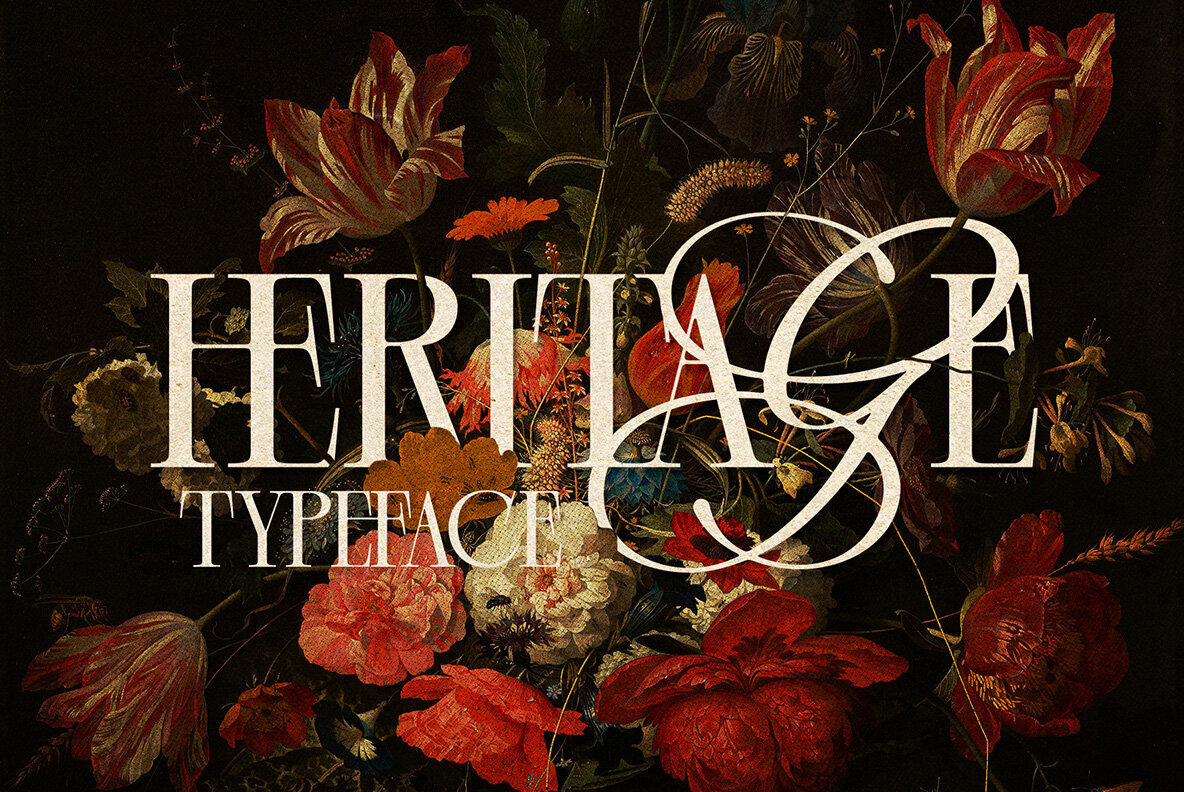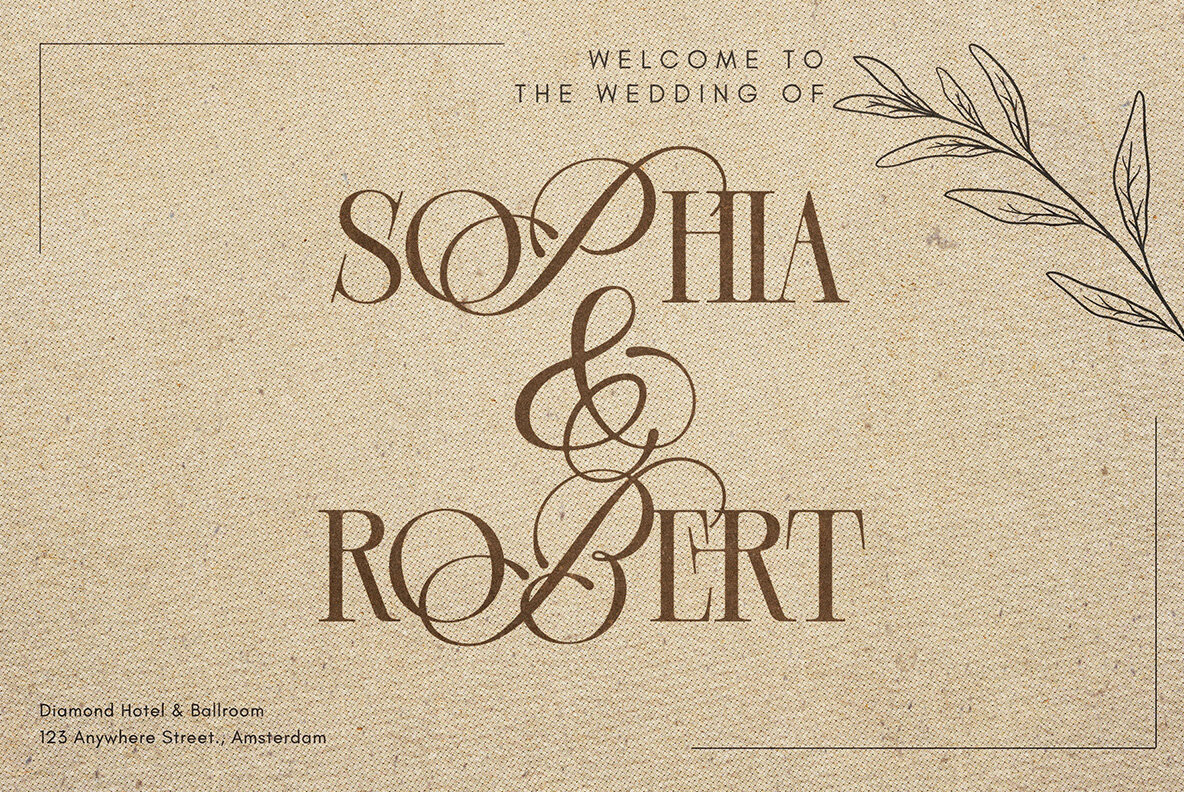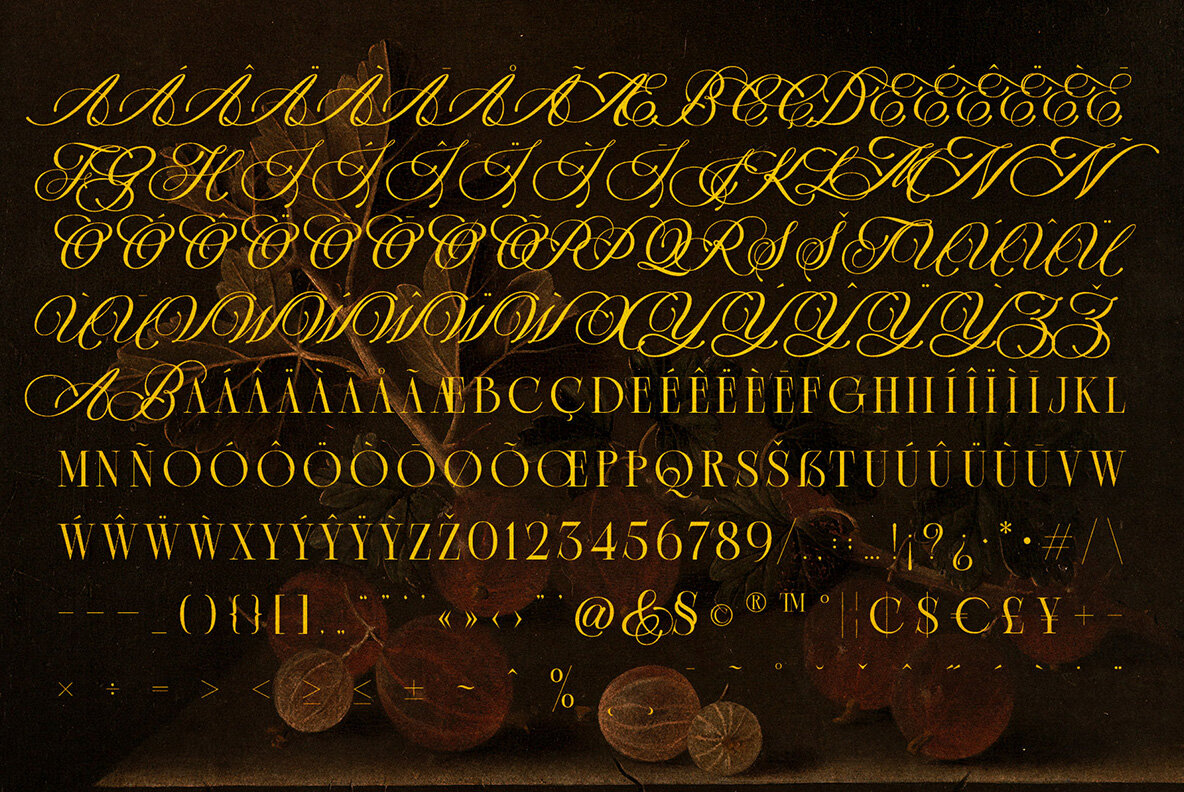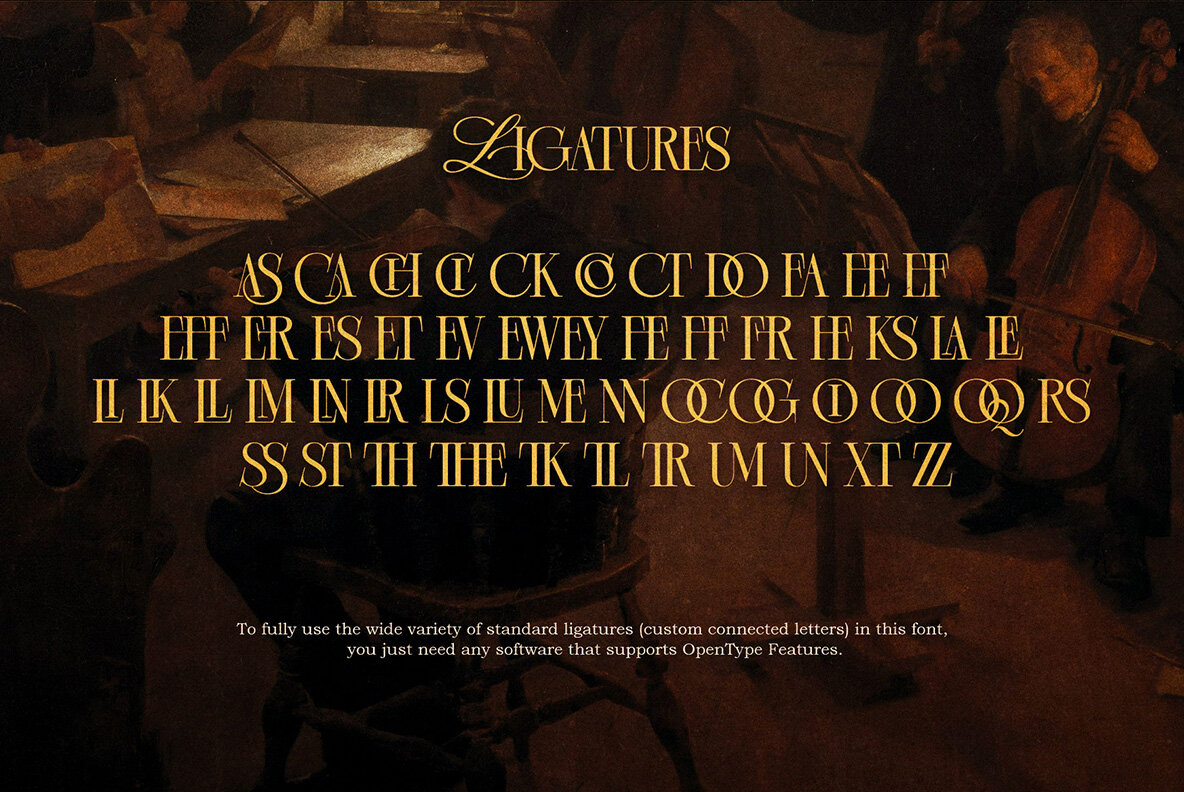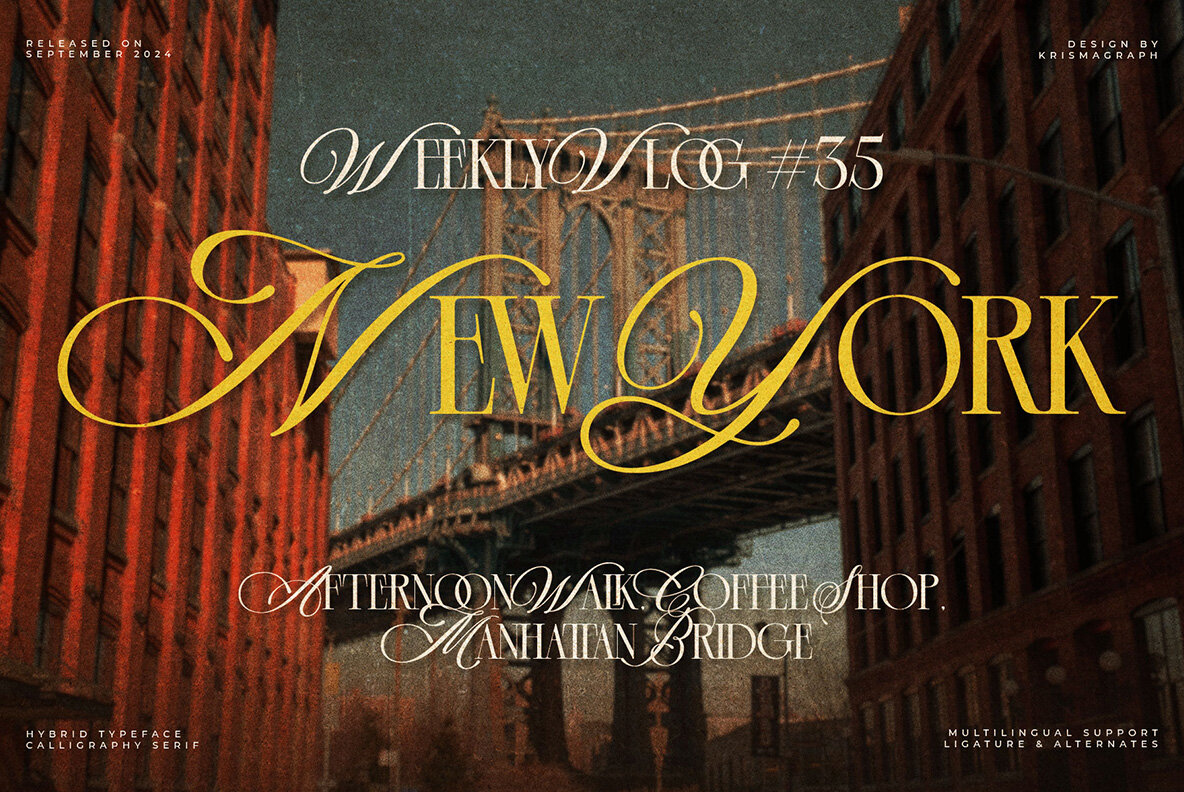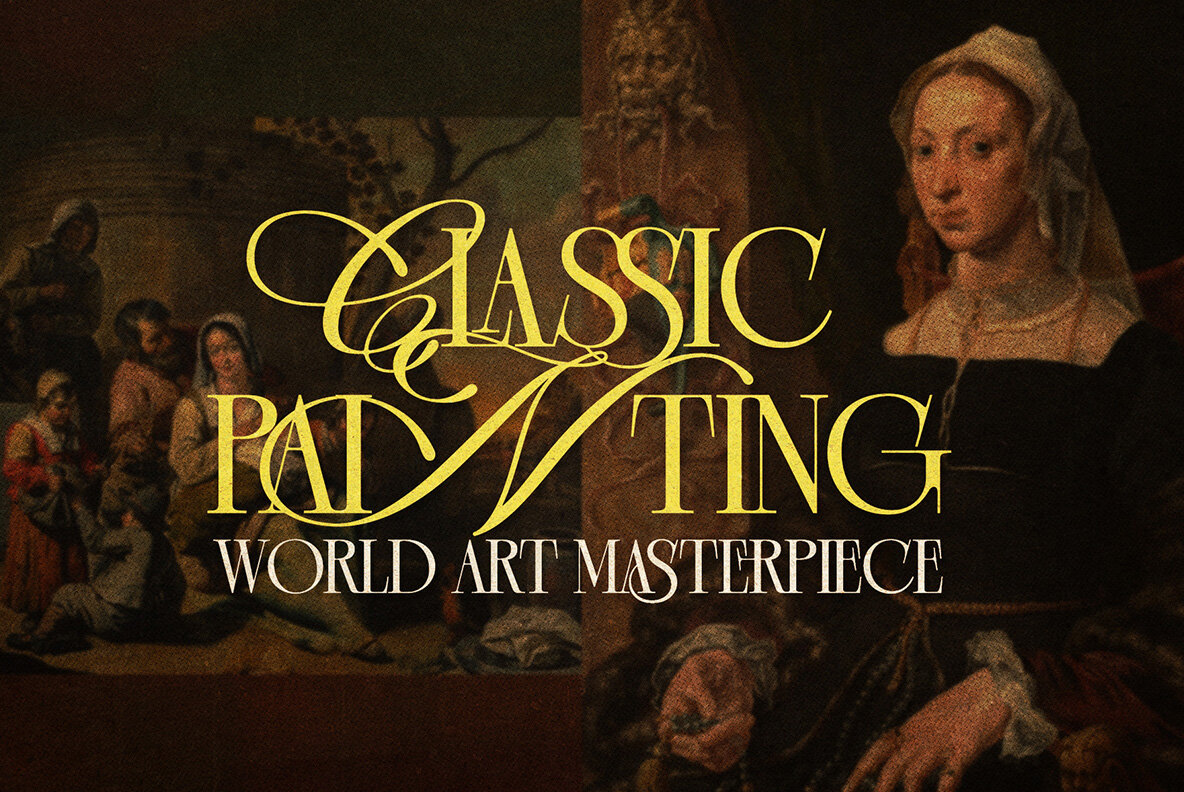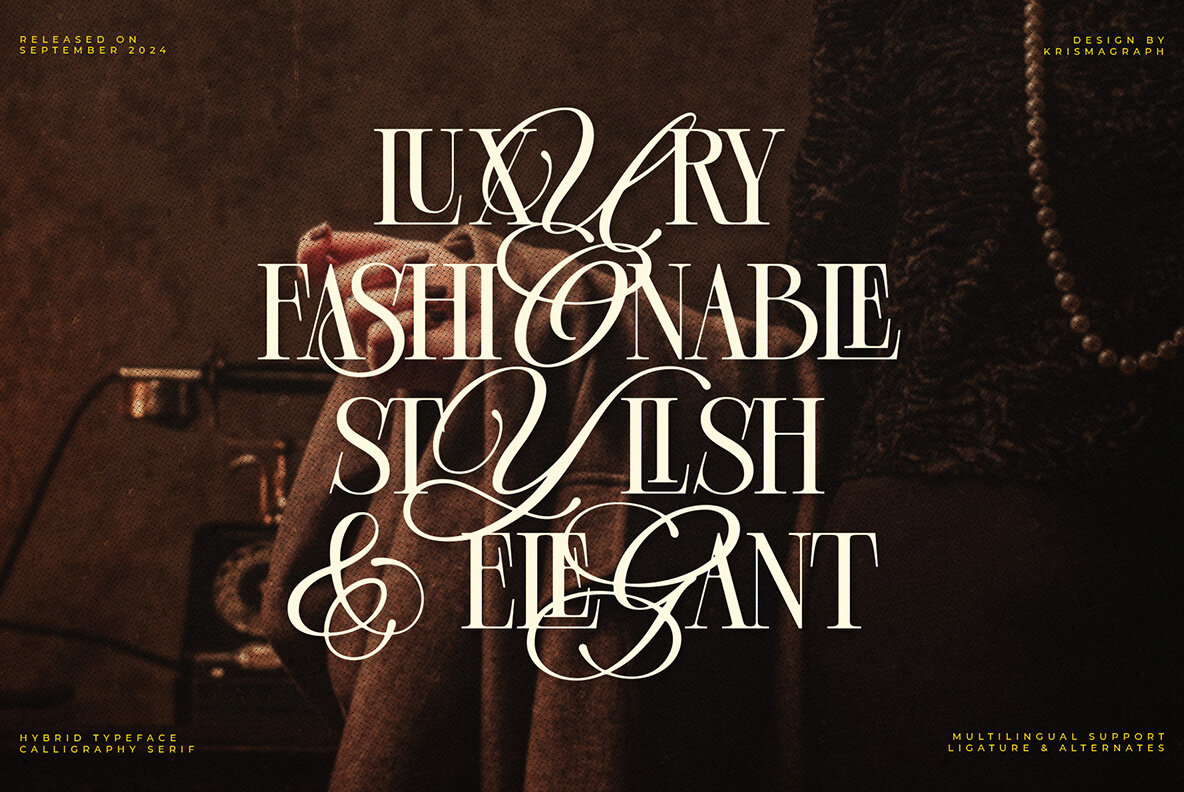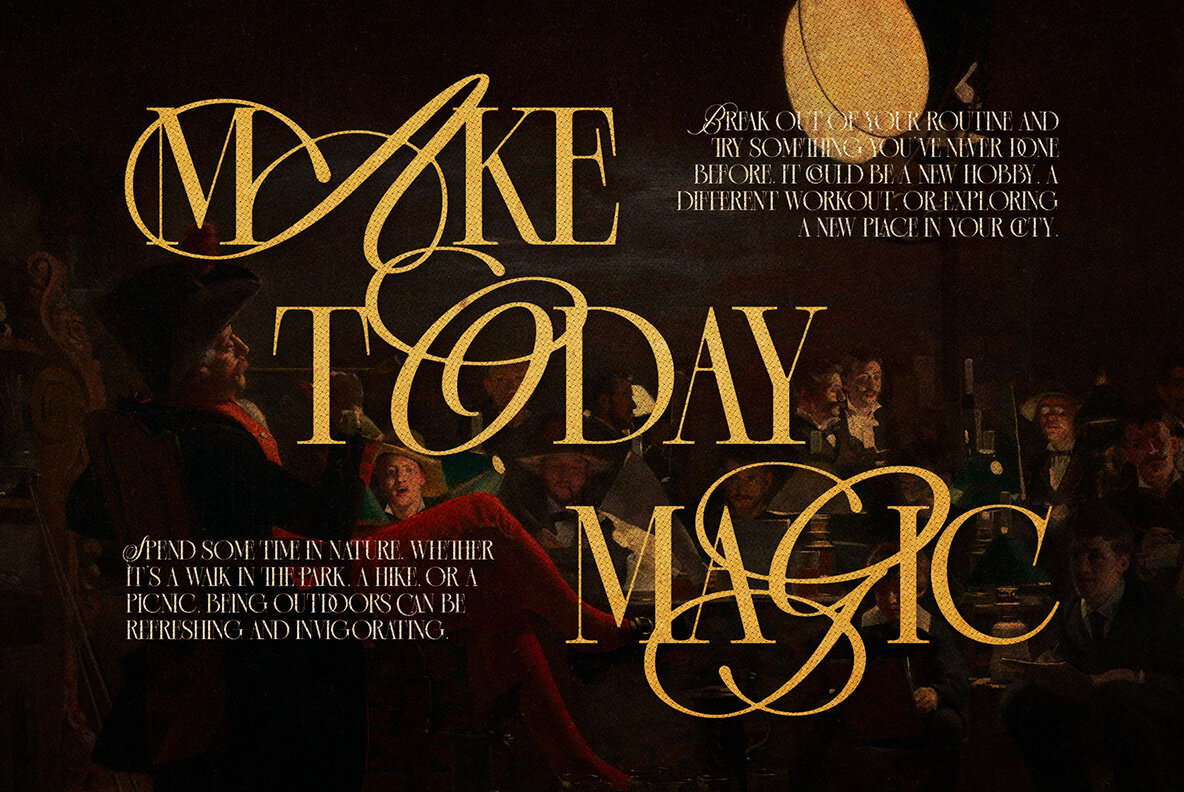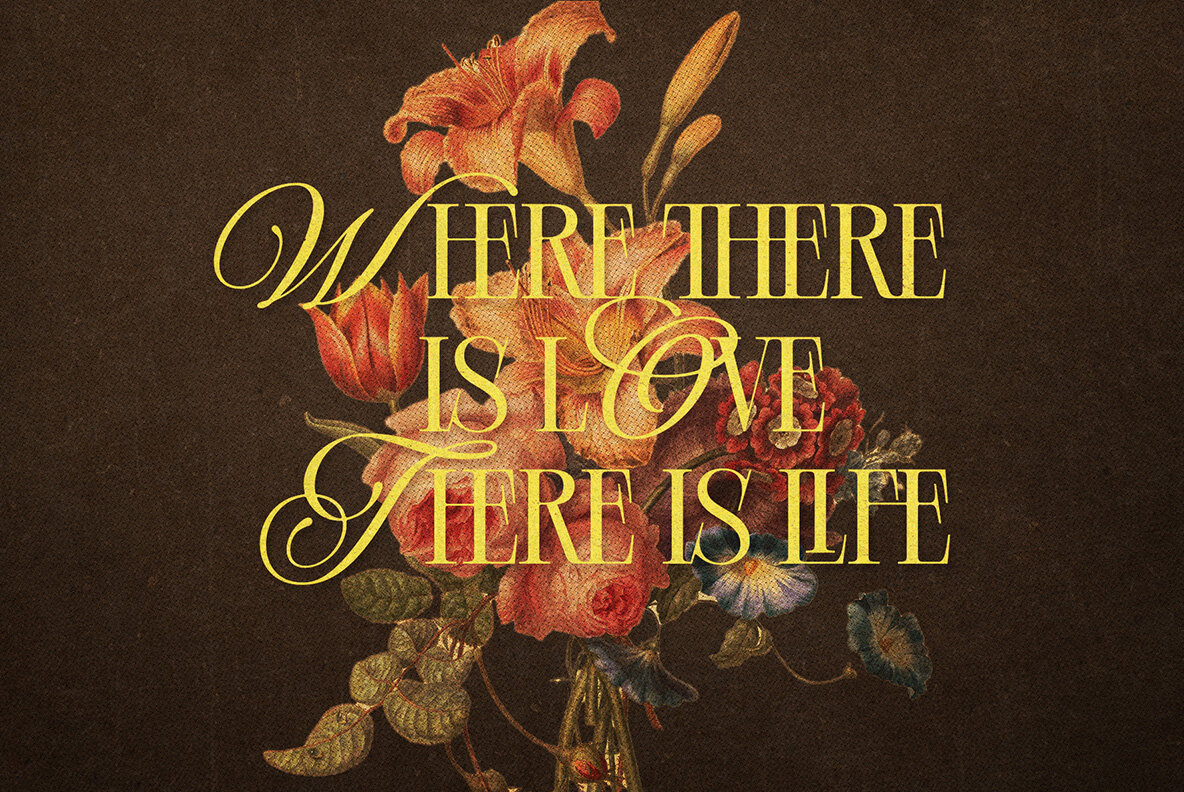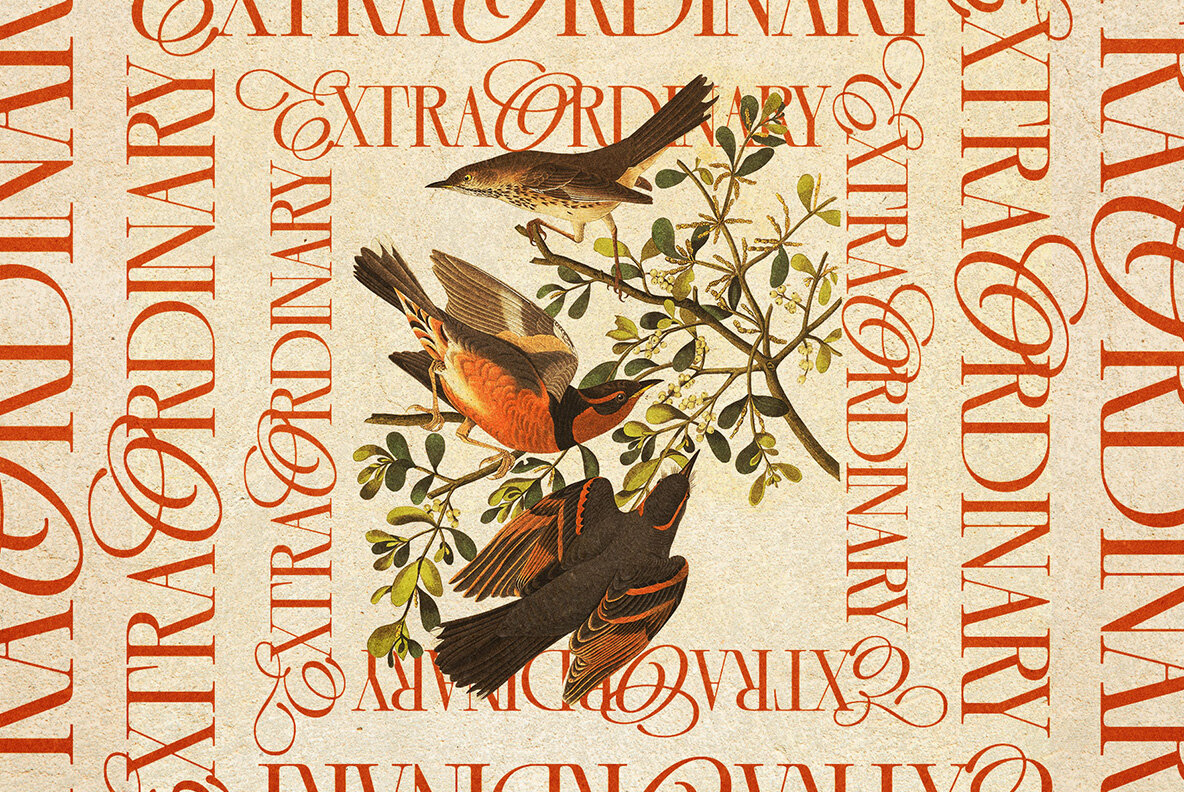
Black Saphire Font
Black Saphire
Black Saphire offers a captivating blend of calligraphy and serif styles, adding a touch of timeless elegance and nostalgic charm to any design project. This unique combination exudes sophistication, making it a perfect fit for branding, editorial layouts, and social media visuals. The font’s versatile aesthetic enhances your design toolkit, providing an opportunity for a refined and polished outcome.
The font features a wide variety of standard ligatures, offering you endless creative possibilities. To maximize these options, simply utilize software supporting OpenType fonts. With its distinctive appeal, Black Saphire is designed to enrich your projects, allowing for a seamless and stylish integration into any design venture.